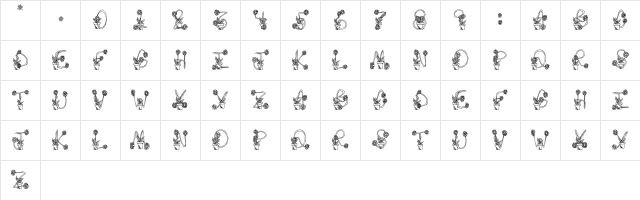
Complete FlowerSketches Regular glyph index. Displaying only characters natively supported by FlowerSketches Regular font.
FlowerSketches is a composed and adaptable typeface that performs quietly and consistently across a wide range of design contexts.